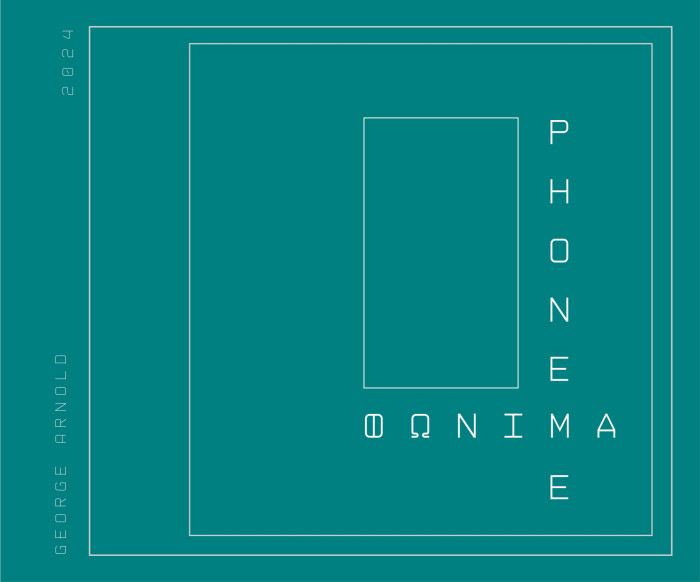
Nice and clean.
I'm with @riccard0. What about complete it with diacritics and the rest?
Can we include Cyrillic?
@CollegeBoi584: look at Phoneme C
can you add IPA